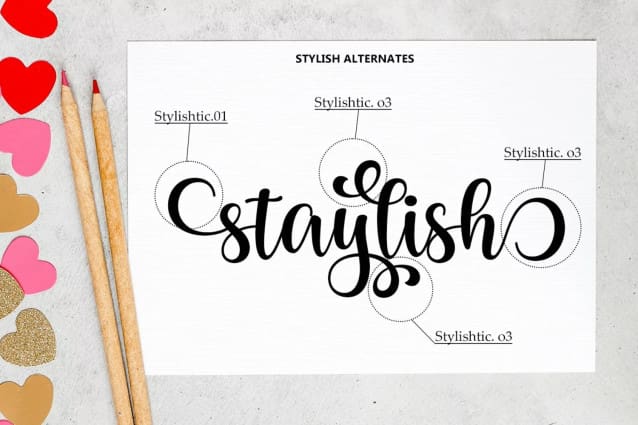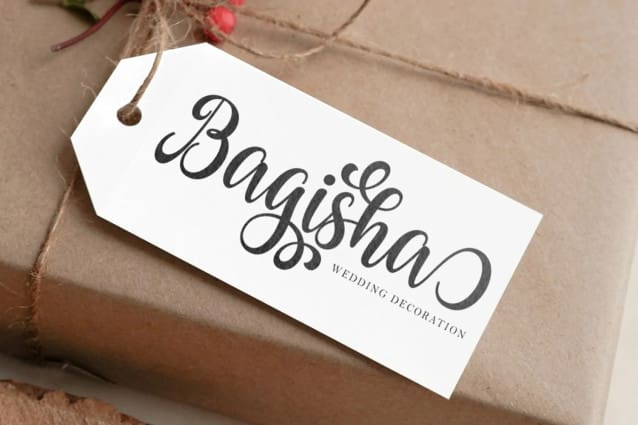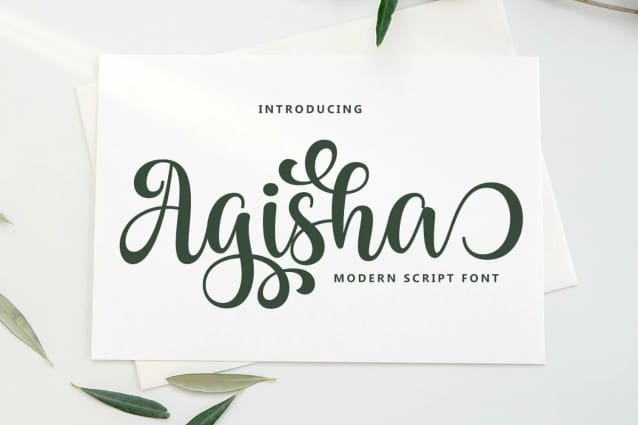
Agisha Font
Agisha Font! A very fun yet elegant script font with lots of energy, it lets you create beautiful handcrafted typography in an instant. With extra curves & twists, Agisha Font is guaranteed to make your text stand out – perfect for logos, printed quotes, invitations, cards, product packaging, headers and anything else you can imagine.
What’s really awesome is that Agisha Font comes with a full set of lowercase alternatives, which allow you to create more authentic custom-feel text.
This type has become the work of true love, making it as easy and fun as possible.